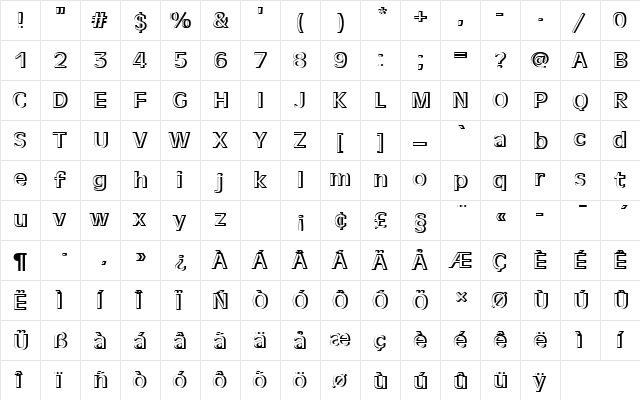
AntiqueOliTRegRe1 Regular Font Preview
AntiqueOliTRegRe1 Regular
AntiqueOliTRegRe1 Regular Font Details
Design Context for AntiqueOliTRegRe1 Typeface
AntiqueOliTRegRe1 wears its vintage influences proudly, with letterforms that recall mid-century signage, classic packaging, and nostalgia-driven design.
Font Pairing: Combine AntiqueOliTRegRe1 with a simple slab or neutral sans — period-accurate companions reinforce the vintage feel without competing for attention.
Pro Tip: Lean into AntiqueOliTRegRe1's period character by pairing it with aged paper textures, muted colour palettes, and vintage illustration styles.